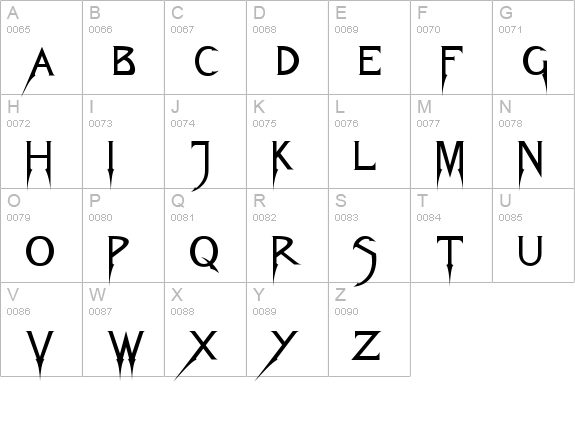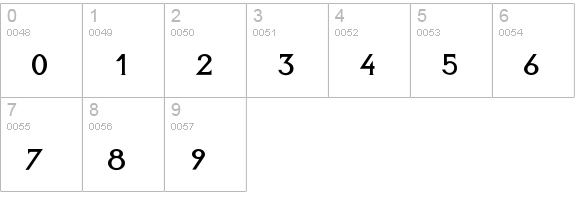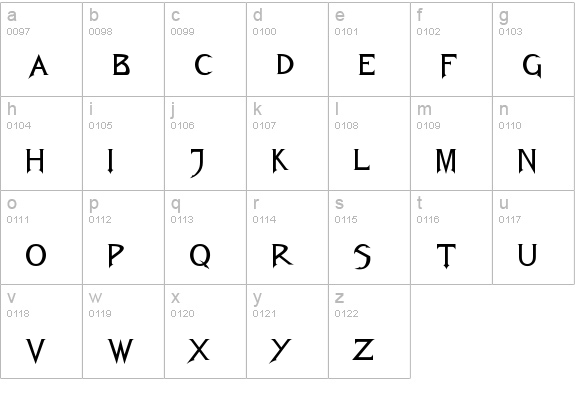
Fiolex Mephisto font is a whimsical and elegant typeface that exudes a sense of enchantment and charm. Its delicate and flowing curves give off a fairy-tale vibe while maintaining a classic and timeless appeal. This font is perfect for adding a touch of magic to your designs, whether it be for invitations, greeting cards, or branding projects. The best part about Fiolex Mephisto font is that it is completely free to download. You can easily access this captivating font at FontsMarket.com, where you can enhance your creative projects with its unique and captivating style. Embrace the enchanting beauty of Fiolex Mephisto font and watch your designs come to life with a touch of whimsy and sophistication.